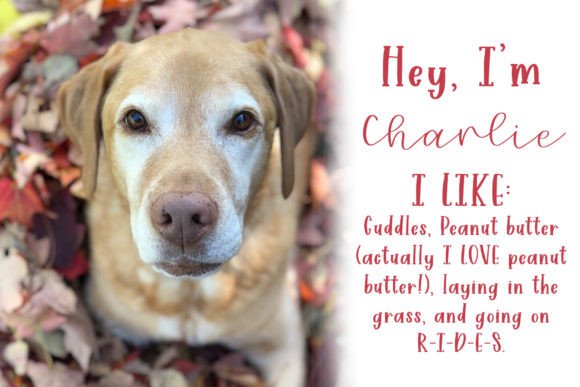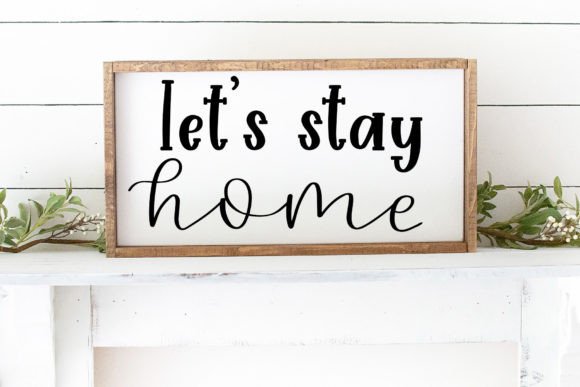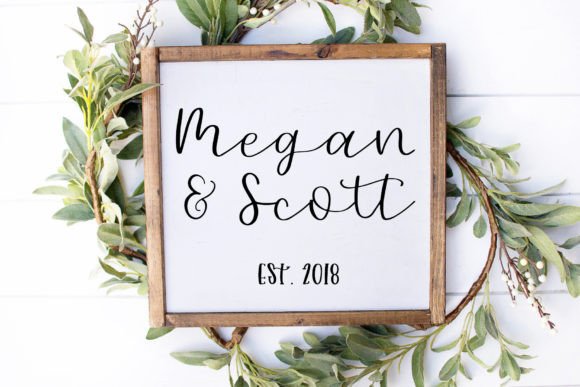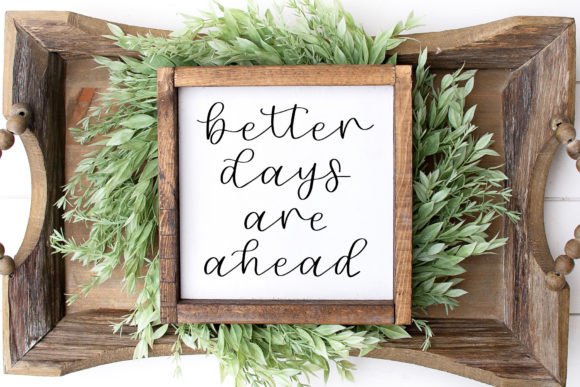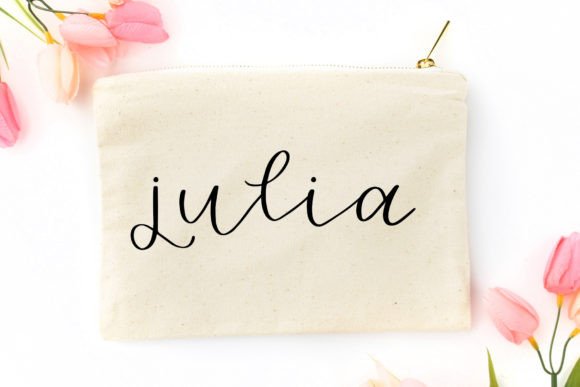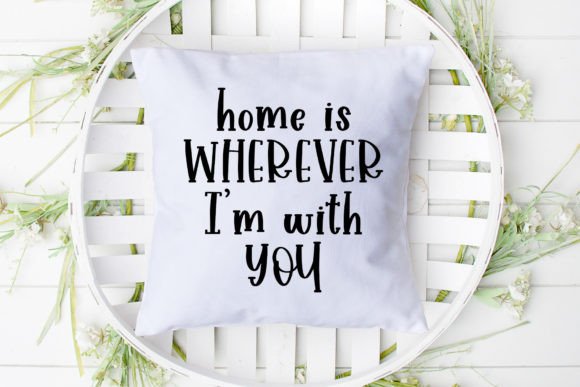
Introducing Charlie Marley Font: A Harmonious Serif and Script Duo
Are you a designer or crafter looking for a font that can elevate your creative projects? Look no further than Charlie Marley Font, a thoughtfully designed serif and script font duo that balance each other beautifully. In this article, we’ll dive into the unique features of Charlie Marley Font and explore how it can enhance your typography.
A Perfect Balance of Masculine and Delicate
Charlie Marley Font consists of two complementary fonts: a serif font with a masculine tone and a script font with a delicate touch. The serif font is sturdy and robust, making it perfect for headlines, titles, and body text. On the other hand, the script font is elegant and refined, ideal for adding a touch of sophistication to your designs.
What sets Charlie Marley Font apart is how seamlessly the two fonts work together. The contrast between the bold serif and the flowing script creates a visually appealing combination that can add depth and interest to your designs. However, they are also great as standalone fonts, allowing you to use them independently depending on your project’s requirements.
PUA Encoding for Easy Access to Glyphs and Swashes
One of the standout features of Charlie Marley Font is its PUA (Private Use Area) encoding. This means that you can easily access all the glyphs and swashes without any hassle. PUA encoding allows designers to access a wide range of characters, including special glyphs, ligatures, and swashes, making it easier to create beautiful and unique typography.
With Charlie Marley Font, you can effortlessly add flourishes and decorative elements to your text, taking your designs to the next level. The font’s PUA encoding ensures that you have complete creative control, allowing you to experiment with different combinations of glyphs and swashes to achieve the desired look.
Charlie Marley Font offers endless design possibilities for creatives. Here are a few ideas to get you started:
• Branding and Logo Design: Use the serif font for a bold and masculine logo or combine it with the script font for a more elegant and sophisticated look.
• Stationery and Invitations: Add a touch of whimsy to your stationery and invitations with the script font, or use the serif font for a more formal look.
• Web Design: Use Charlie Marley Font to create visually appealing headings, titles, and body text for your website.
• Crafting and DIY Projects: Add a personal touch to your crafting and DIY projects, such as handmade cards, gift tags, and journal pages, with the script font.
Why Choose Charlie Marley Font?
So, why should you choose Charlie Marley Font for your design projects? Here are a few compelling reasons:
• Unique and Versatile: Charlie Marley Font offers a unique combination of serif and script fonts that can be used in a variety of design projects.
• Ease of Use: The font’s PUA encoding makes it easy to access glyphs and swashes, saving you time and effort.
• High-Quality Design: Charlie Marley Font is designed with high-quality craftsmanship, ensuring that your designs look professional and polished.
In conclusion, Charlie Marley Font is an exceptional serif and script font duo that can elevate your design projects. With its perfect balance of masculine and delicate, PUA encoding for easy access to glyphs and swashes, and endless design possibilities, this font is a must-have for designers and crafters. Whether you’re creating branding materials, stationery, web designs, or crafting projects, Charlie Marley Font is sure to inspire your creativity and take your typography to new heights.